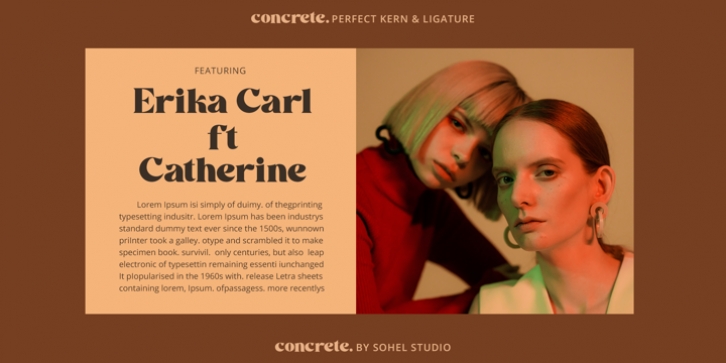
Concrete Thick Font Family was designed by Akhmad Husain Rifa'i, and and published by Sohel Studio. Concrete Thick contains 5 styles and family package options.
Concrete Thick Modern Retro Bold Serif . That has a unique style & luxurious look. is great for logos, editorial, web design, craft projects, shirts, decor, wedding invitations, packaging, stickers, social media, quotes, magazines and more!. The unique sharp serifs mixed with thin strokes give off a bold mid century architectural vibe.
Concrete Thick features:
· 4 Weights font (Regular,Oblique,Bold,Thin)
· Uppercase And Lowercase
· Numerals & Punctuation
· Accented characters
· Multilingual Support